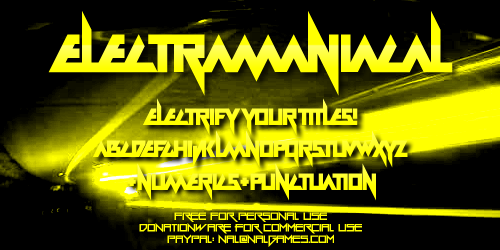
A font made mainly for titles. The space character is very short in this, if certain glyphs don't go well for what you want, use it to space them out as much as needed. (The font should do the work in most situations though, it's just edge cases such as when you have a "V", "W" and/or "Y" next to each other.) FOR ANY USAGE Either: Donate money to Andrew McCluskey via PayPal: nal@nalgames.com. I recommend the donation sum is what you feel the font is worth to you and what you feel is right for what you're getting from the font - I make less from doing this than you might think! Or: See here for alternatives! http://nalgames.com/donations/ FOR PERSONAL OR NON-PROFIT USAGE Either: Do any of the options from "For Any Usage" Or: Drop me a line on nal@nalgames.com telling me you're using it. If possible, include what for, and if you're feeling generous, I'd love to see a sample of my font in action! This grants you, or the organisation/etc you represent, the ability to use this font infinitely for non-commercial/non-profit (option 2) or anything whatsoever (option 1). I do not restrict what you want to use it for, anything goes. You may redistribute this font, but please let me know via nal@nalgames.com (I won't prohibit redistribution under any circumstance) and please include everything contained within the .zip folder the font was downloaded in. More... |